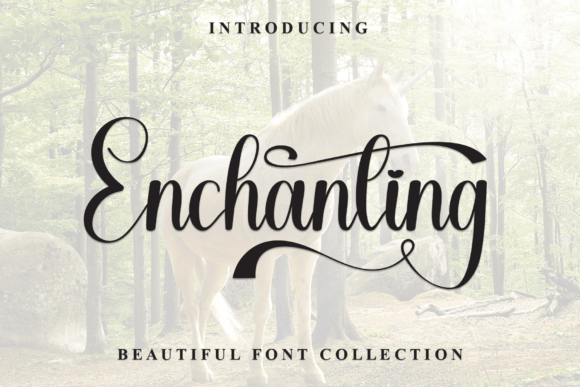
Unlock the Magic of Hand-Painted Calligraphy
Have you ever stared at a blank canvas, struggling to bring your creative vision to life? For many designers, it’s that moment of uncertainty that sparks the search for the perfect font. It’s a moment when the right typography can make all the difference, elevating your design from ordinary to extraordinary.
Enter the Enchanting Font, a stylish script font that embodies the essence of hand-painted calligraphy with a modern twist. Designed to add a touch of artistic flair and contemporary elegance to any design, this font is perfect for logos, invitations, packaging, and social media graphics. With its natural flow and vibrant character, the Enchanting Font delivers both visual impact and versatility, making it a valuable addition to any designer’s toolkit.
Key Features of Enchanting Font
- Character Count: The font contains 500+ characters, including uppercase and lowercase letters, numbers, punctuation marks, and special characters, making it a versatile choice for various design applications.
- Unique Characteristics: The font features a unique, hand-crafted design with intricate details and subtle flourishes, giving it a distinctive and enchanting feel that sets it apart from other fonts.
- Language Support: Enchanting Font supports a wide range of languages, including Latin, Cyrillic, and Greek alphabets, making it a great choice for multilingual design projects.
Enchanting Font Review
I’ve had the pleasure of working with the Enchanting Font, and I must say it’s a beautiful addition to any design project ✨. The font’s whimsical and elegant feel makes it perfect for creative projects, from invitations to digital art.
The font’s flexibility is one of its strongest points ✨. It comes in various styles and weights, allowing designers to mix and match to achieve the desired look. The font’s versatility also makes it suitable for a wide range of industries, from fashion to publishing.
- Whimsical and elegant design
- Flexible styles and weights
- Suitable for various industries
Overall, I’m impressed with the Enchanting Font ✨. While it may have some limitations, its unique design and flexibility make it a valuable addition to any designer’s toolkit. With a little creativity, the Enchanting Font can help designers create truly enchanting designs.
Tips for Getting the Most Out of Enchanting Font
Use Enchanting Font for titles, headings, and emphasis to add visual interest to your designs.
Pair Enchanting Font with other fonts to create a unique and eye-catching typography.
Experiment with different font sizes, colors, and styles to find the perfect combination for your design.
Enchanting Font is perfect for:
Blogs and articles to add a touch of elegance and sophistication.
Wedding invitations and event materials to create a whimsical and romantic atmosphere.
Branding and marketing materials to add a unique and memorable touch.
Alternatives to Enchanting Font for Designers
Enchanting Font is a beautiful, elegant script font, but sometimes it may not be the perfect fit for a design project. Here are some alternatives to consider:
Carolyna Pro is a modern, luxurious script font with a sophisticated and elegant feel. It’s perfect for high-end branding, weddings, and special occasions. It has a more refined and polished look compared to Enchanting Font, making it ideal for luxury brands and designers who want to create a premium feel.
Great Vibes is a beautiful, elegant script font with a more relaxed and casual feel. It’s perfect for creative projects, such as book covers, magazine titles, and social media graphics. It has a more fluid and organic look compared to Enchanting Font, making it ideal for designers who want to create a more playful and expressive feel.